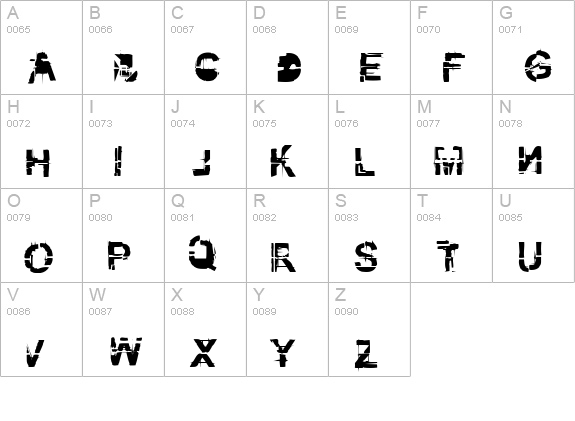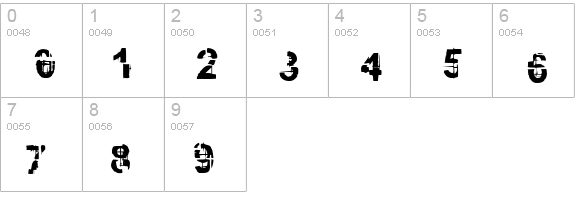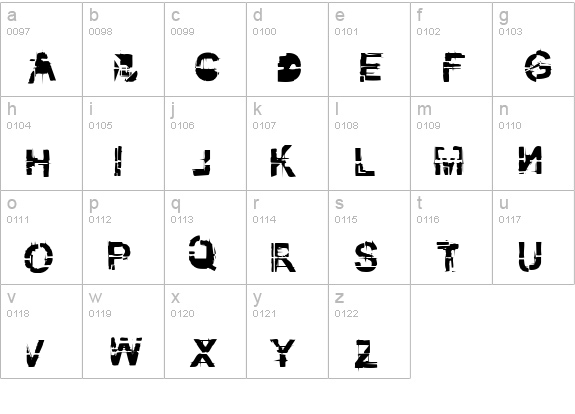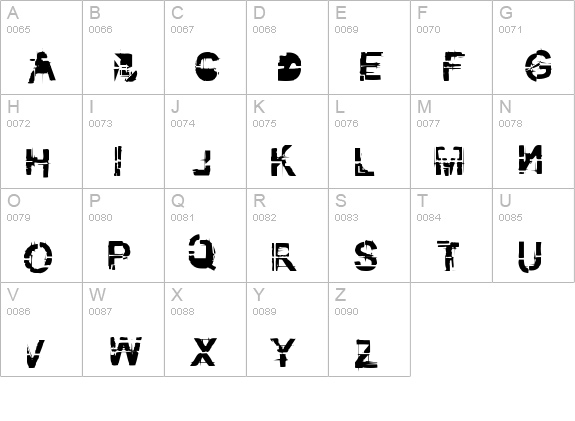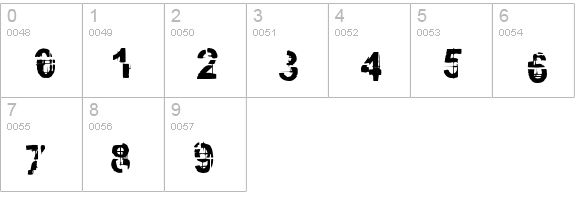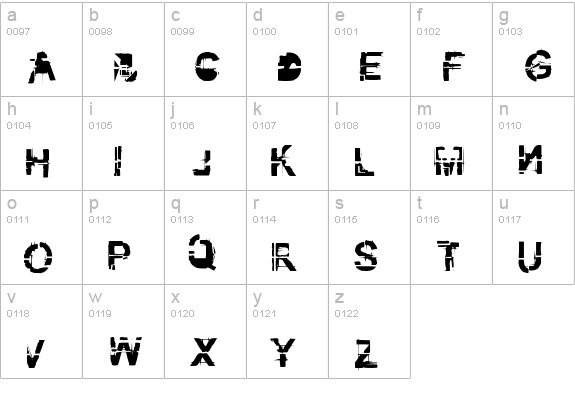
kibblez no bitz Font Details
Introducing Kibblez No Bitz Font, a stunning typeface that effortlessly blends modernity with a touch of playfulness. This font is designed to make a bold statement, whether it's for eye-catching headlines, captivating logos, or creative branding projects. Kibblez No Bitz Font boasts a unique combination of sharp edges and smooth curves, creating a visually striking aesthetic that is sure to capture attention. Its versatility shines through, making it suitable for a wide range of design purposes, from digital media to print materials. What sets Kibblez No Bitz Font apart is its ability to evoke a sense of approachability and friendliness, making it perfect for any project that aims to connect with its audience. Whether you're designing a website, creating social media content, or crafting invitations, this font will add a touch of warmth and personality to your work. But the best part is that Kibblez No Bitz Font is freely available to download at FontsMarket.com. Yes, you read that right - you can get your hands on this exceptional font without spending a dime. It's the perfect opportunity to enhance your design toolbox with a font that not only looks amazing but also comes with the added bonus of being free. So don't miss out on this incredible font. Download Kibblez No Bitz Font today from FontsMarket.com and let your creativity soar to new heights. Whether you're a professional designer or a hobbyist, this font will undoubtedly become an invaluable asset in your collection. Get ready to make a lasting impression with Kibblez No Bitz Font - a typeface that combines style, versatility, and the best part, it won't cost you a thing!